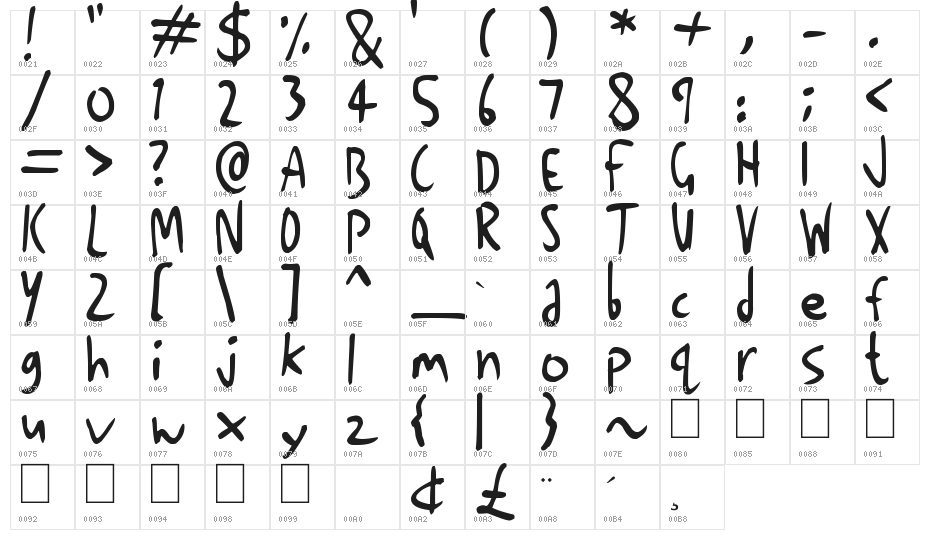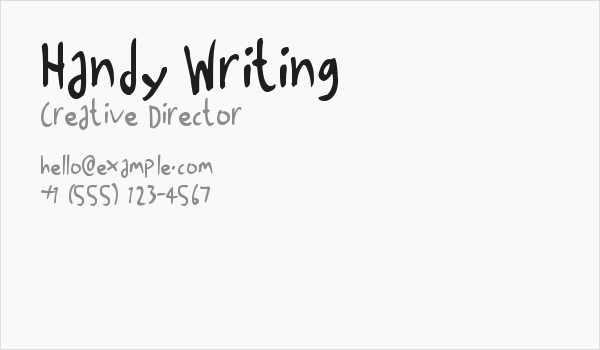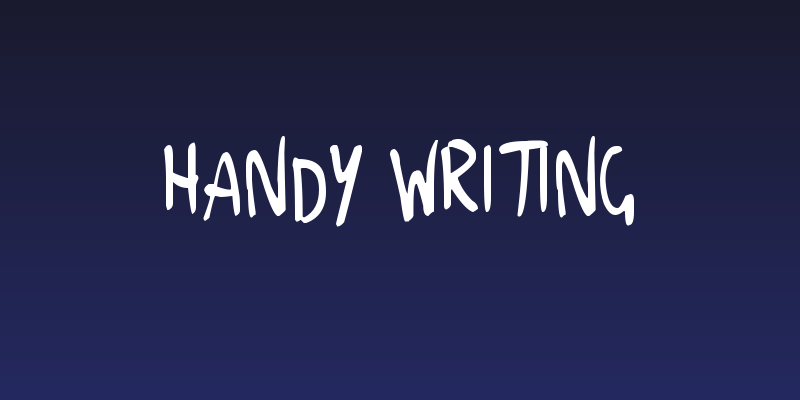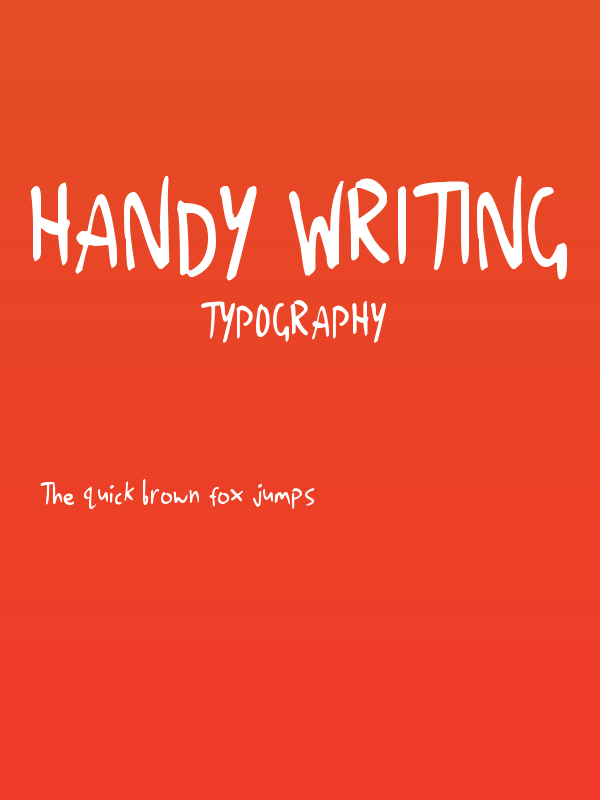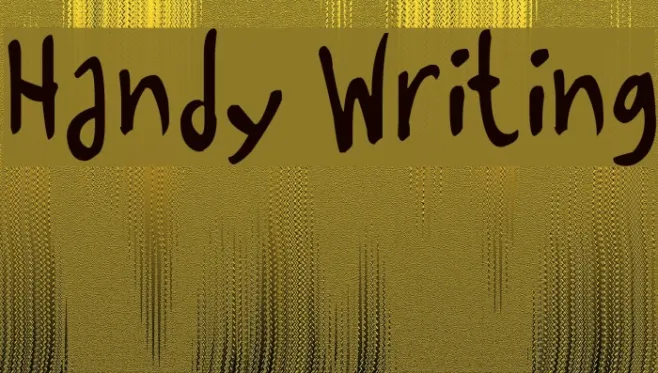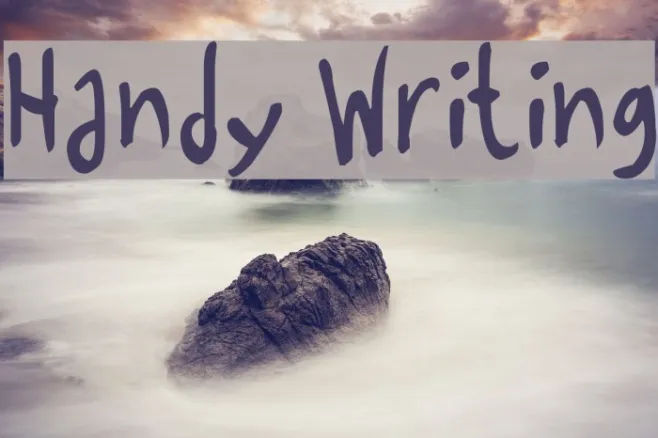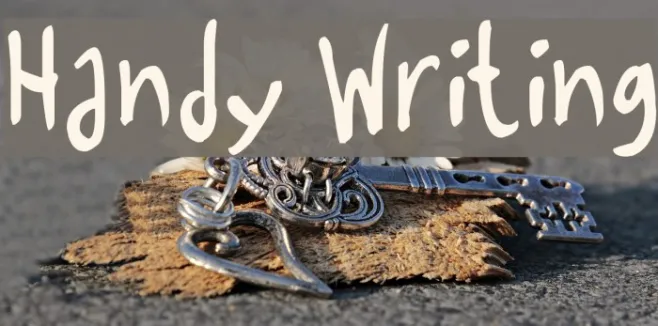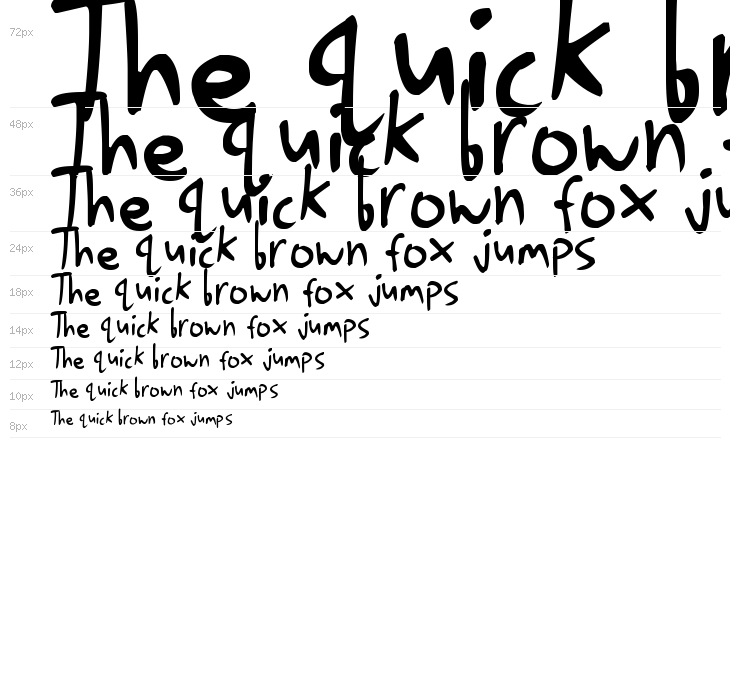
Handy Writing Font
Handy Writing Description
This font exudes a playful and informal vibe, reminiscent of casual handwriting. The characters are bold and slightly irregular, giving them a lively and spontaneous appearance. The strokes are thick and consistent, with a slight slant that adds to the handwritten feel. The uppercase letters are tall and commanding, while the lowercase letters maintain a friendly and approachable demeanor. Numbers and special characters follow the same whimsical style, making them stand out in a fun and engaging way. This font is perfect for projects that require a personal touch or a creative flair.
| Proposed Projects | Ideal for greeting cards, children's books, casual invitations, and creative branding. |